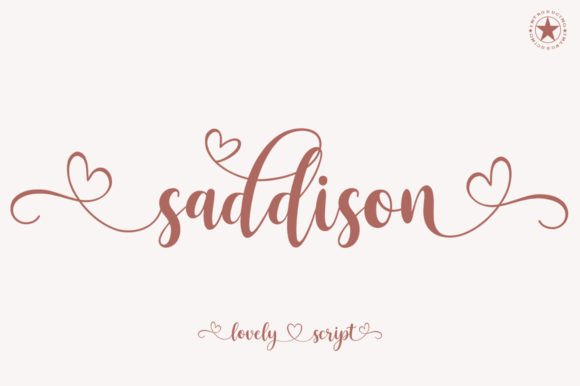
Introducing Saddison Font, the perfect script font for anyone seeking a touch of romance and sweetness in their designs! Created by the talented bosstypestudio, Saddison is a calligraphy typeface with characters that seem to dance along the baseline, adding an elegant yet casual touch to any project.
But Saddison Font is more than just a pretty face. It's also incredibly versatile, thanks to its PUA encoding, which allows you to access all of the glyphs and swashes with ease. This means that you can create custom designs and add a personal touch to your work, making it truly unique and memorable.
Imagine using Saddison Font for wedding invitations or romantic love letters - it's the perfect choice to convey the warmth and tenderness of such special moments. Or maybe you want to add a touch of elegance and sophistication to your branding or advertising materials - Saddison Font will elevate your message and make it stand out from the crowd.